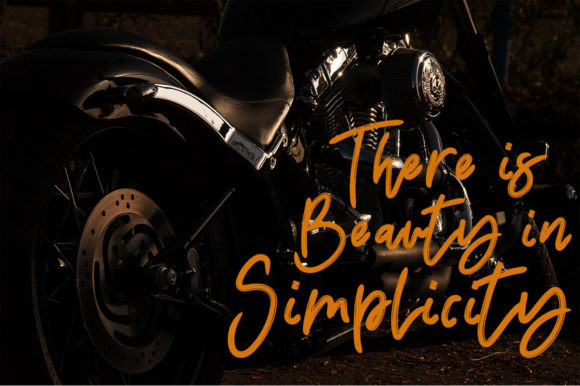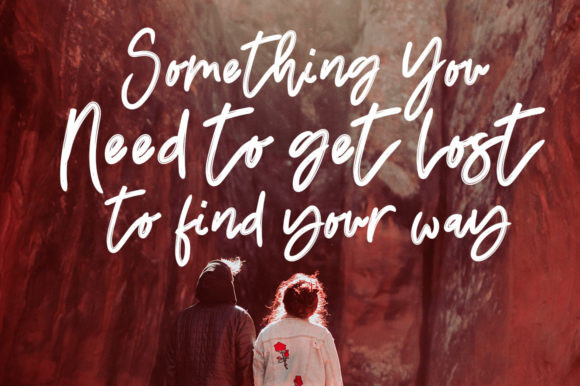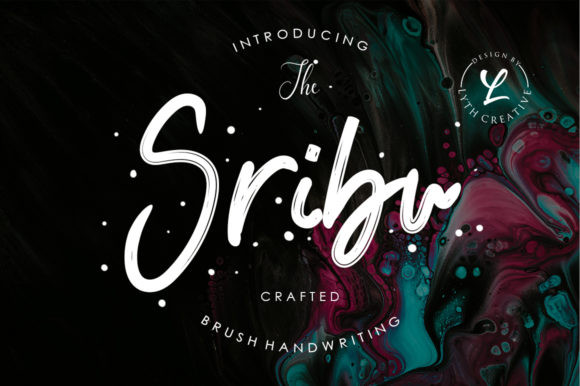
Sribu Font
Sribu is a bold and beautiful handwritten font with a lot of authenticity! Get inspired by its unique charm, and turn any design idea into a stunner